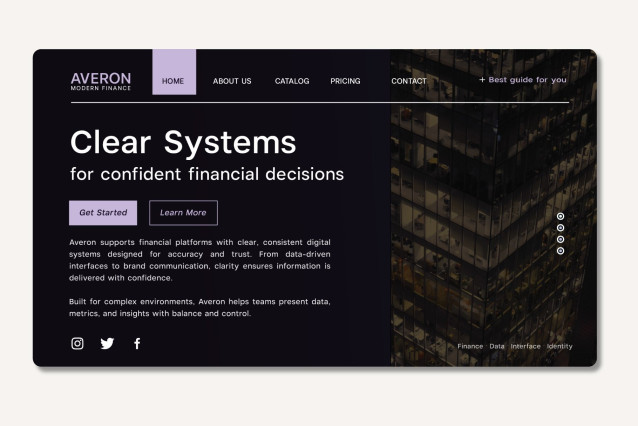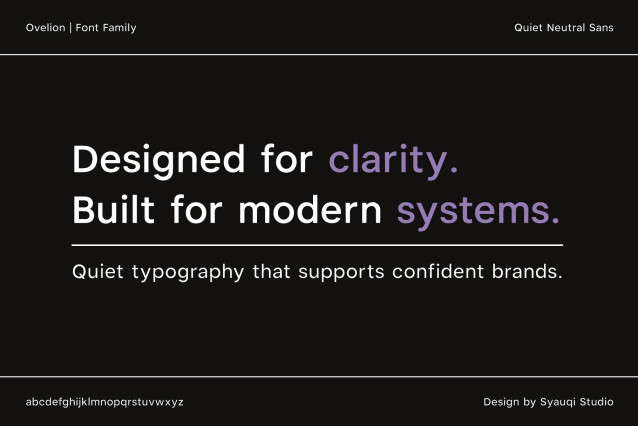
Ovelion Font
Ovelion Font is a quiet, neutral sans serif designed for clear and consistent communication across branding, digital interfaces, editorial design, and corporate use. With usability at its core, Ovelion delivers strong readability and visual balance in both screen and print environments.
Perfect for UI systems, websites, apps, editorial layouts, and corporate identity, performing reliably across sizes and platforms.